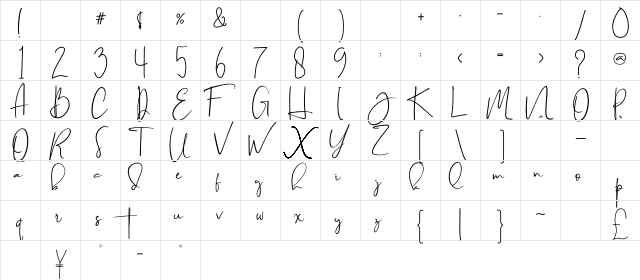
Brilliant Signature 1 Regular Regular
Design Context for Brilliant Signature 1 Regular Typeface
Brilliant Signature 1 Regular is a composed and adaptable typeface that performs quietly and consistently across a wide range of design contexts.